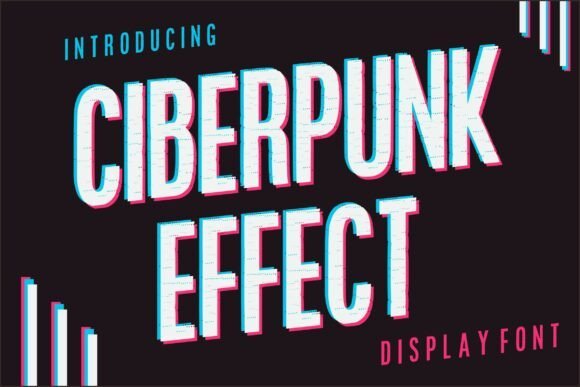
The Future is Now: Unlocking the Power of the Cyberpunk Effect Font
Have you ever found yourself lost in a virtual world, surrounded by neon-lit skyscrapers and pulsating digital landscapes? For many creatives, that’s exactly where the magic happens. It’s in these moments of inspiration that we stumble upon the perfect font to capture the essence of our futuristic vision. And for those seeking to bring their cyberpunk dreams to life, we have the perfect tool: the Cyberpunk Effect Font.
This bold display font is more than just a design element – it’s a key to unlocking a world of high-tech futuristic feels. With its strong geometric letterforms, subtle glitch textures, and vibrant chromatic shadow effects, the Cyberpunk Effect Font is the perfect addition to any designer’s toolkit. Whether you’re creating posters, logos, or digital artwork, this font is sure to give your designs a powerful and stylish sci-fi atmosphere.
Cyberpunk Effect Font Key Features
- Unique Characteristics: The font features a futuristic, high-tech aesthetic with bold lines, geometric shapes, and a distressed texture, giving it a gritty, cyberpunk feel.
Cyberpunk Effect Font Review
I recently had the chance to experiment with the Cyberpunk Effect Font, and here’s my honest review.
The font has a really cool aesthetic, perfect for any cyberpunk-themed project. The retro-futuristic vibes are spot on, and it’s great for adding a touch of edginess to your design. I also appreciate the flexibility of the font, which comes in multiple styles and weights.
- Unique and futuristic design
- Multiple styles and weights to choose from
- Perfect for cyberpunk-themed projects
While the font has its strengths, there are a few areas where it falls short. The font can be quite busy, making it difficult to read in some contexts. Additionally, the font is not as versatile as some other fonts on the market, which may limit its use in certain projects.
- Can be too busy for some contexts
- Limited versatility compared to other fonts
In conclusion, the Cyberpunk Effect Font is a great choice for projects that require a futuristic, edgy aesthetic. While it has its limitations, the font’s unique design and flexibility make it a valuable addition to any designer’s toolkit.
The Cyberpunk Effect Font is ideal for:
- Sci-fi and futuristic designs.
- Neon-lit signs and billboards.
- Video game and movie title sequences.
- Steampunk and cyberpunk-themed art.